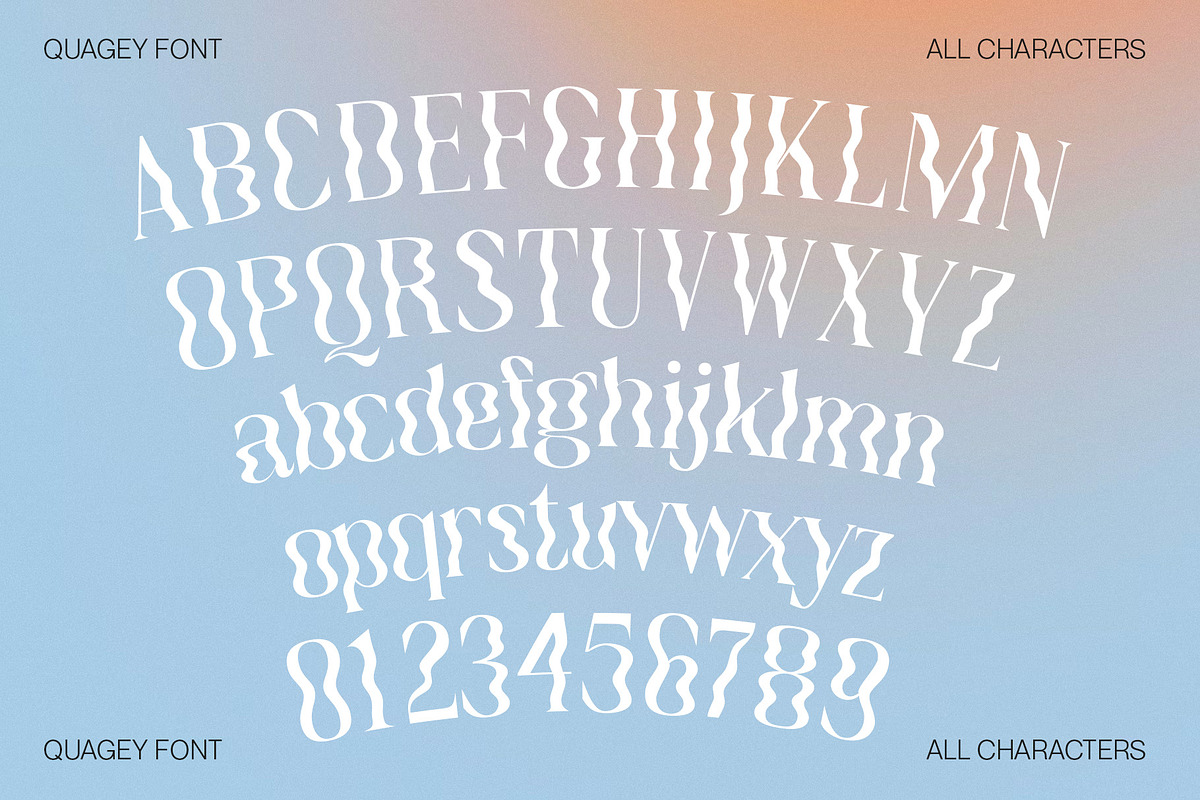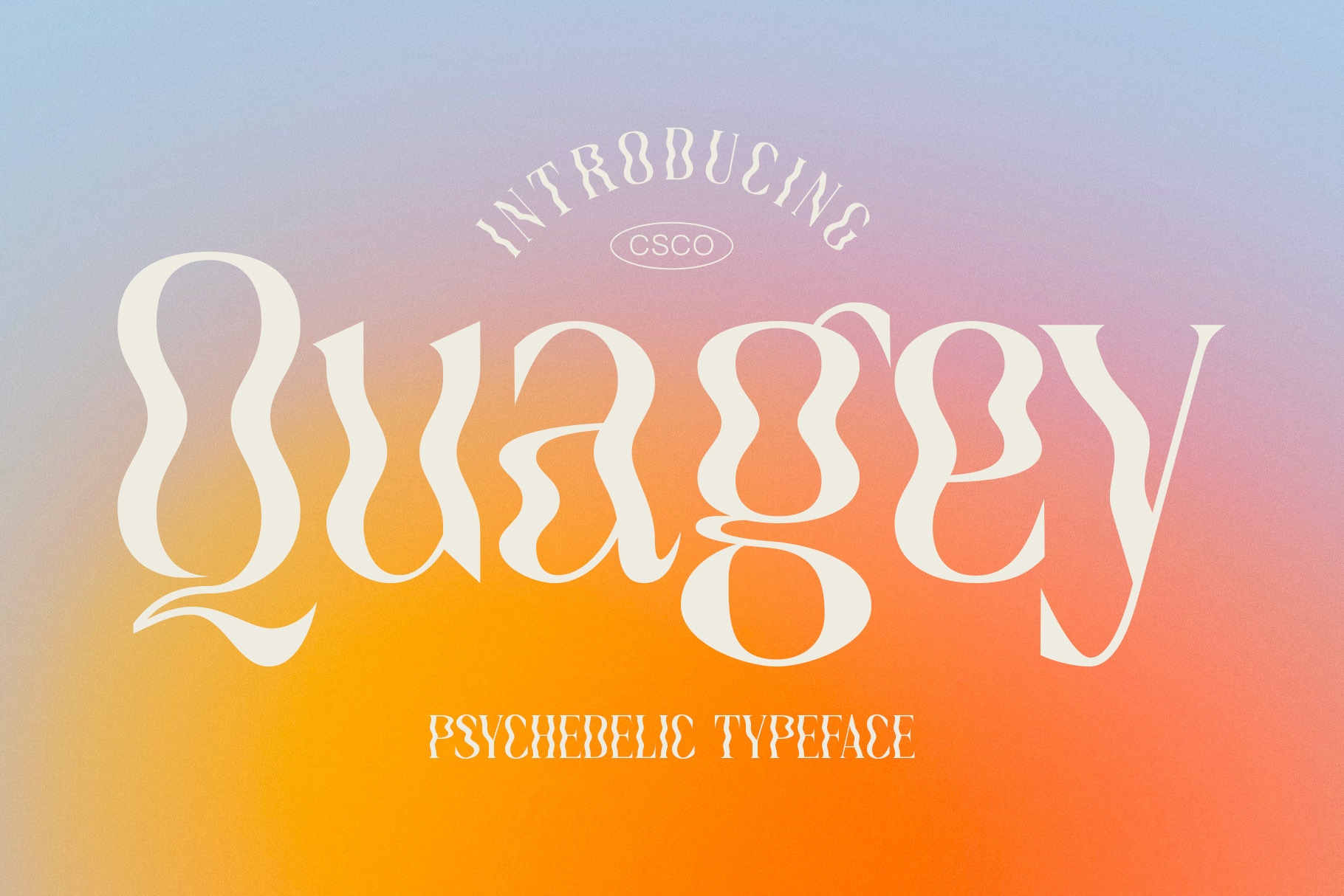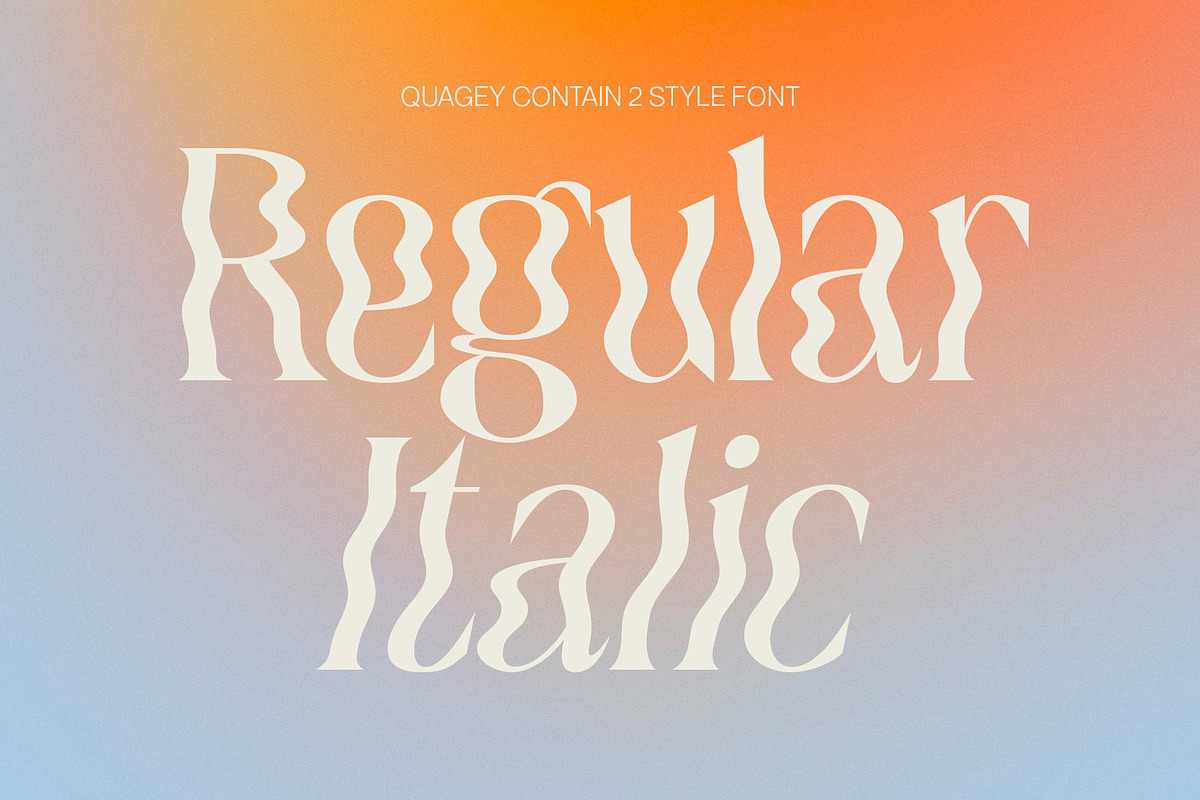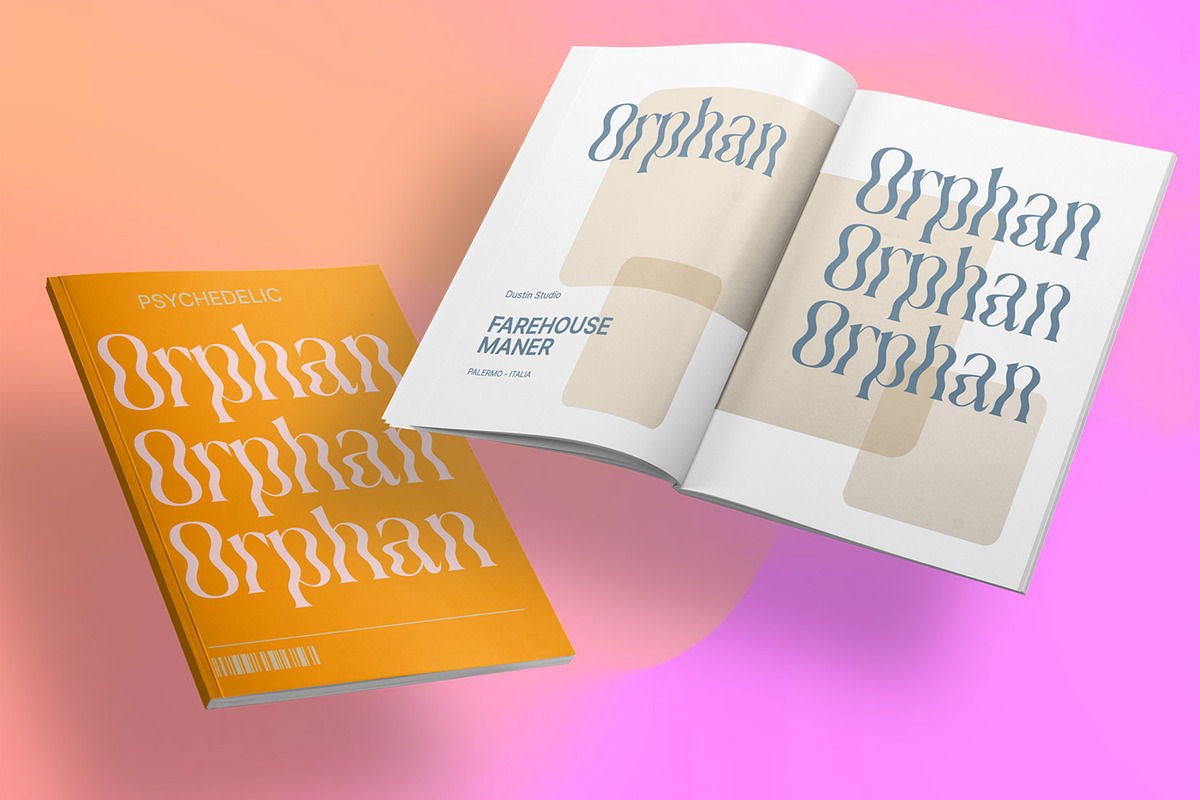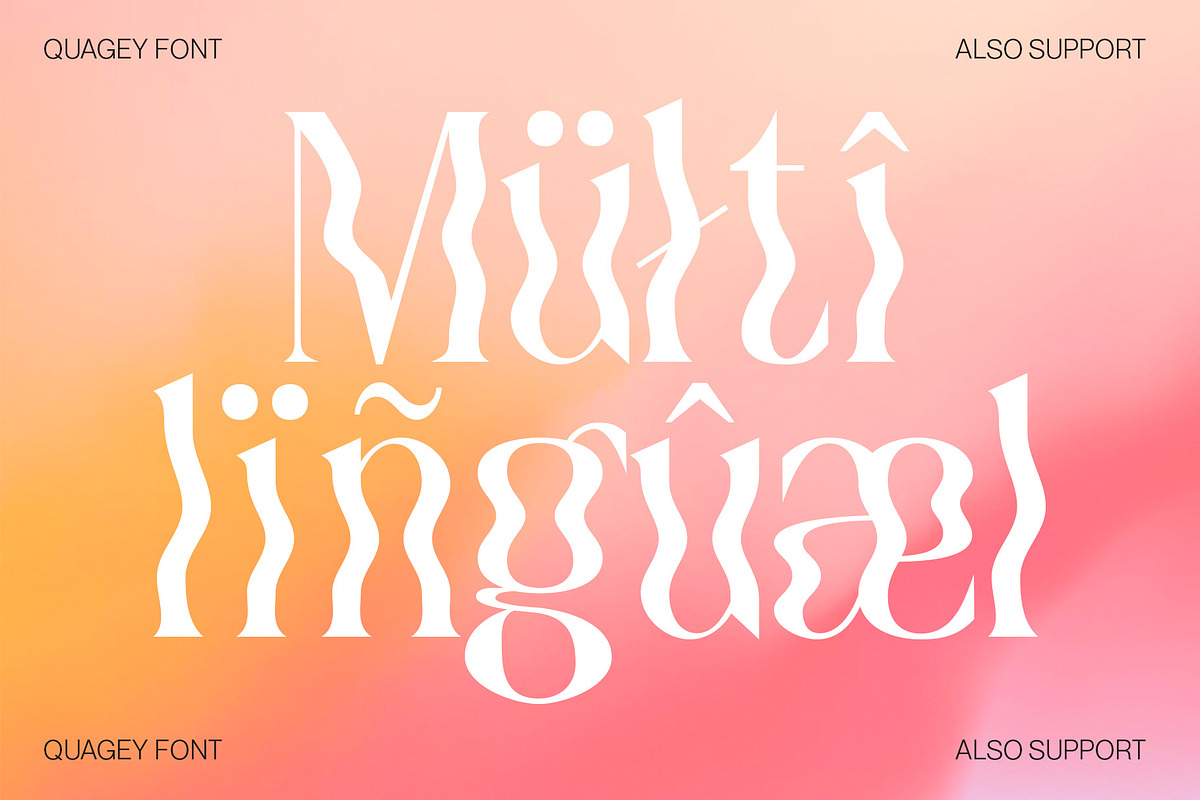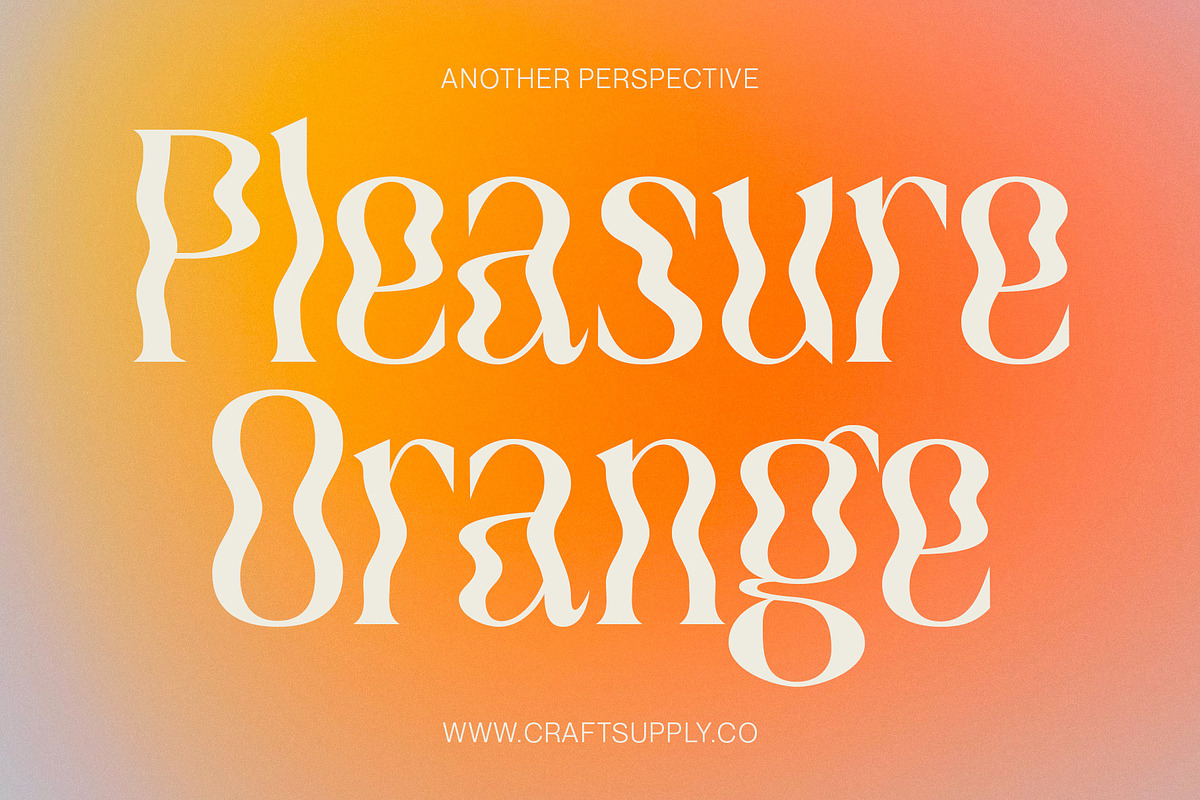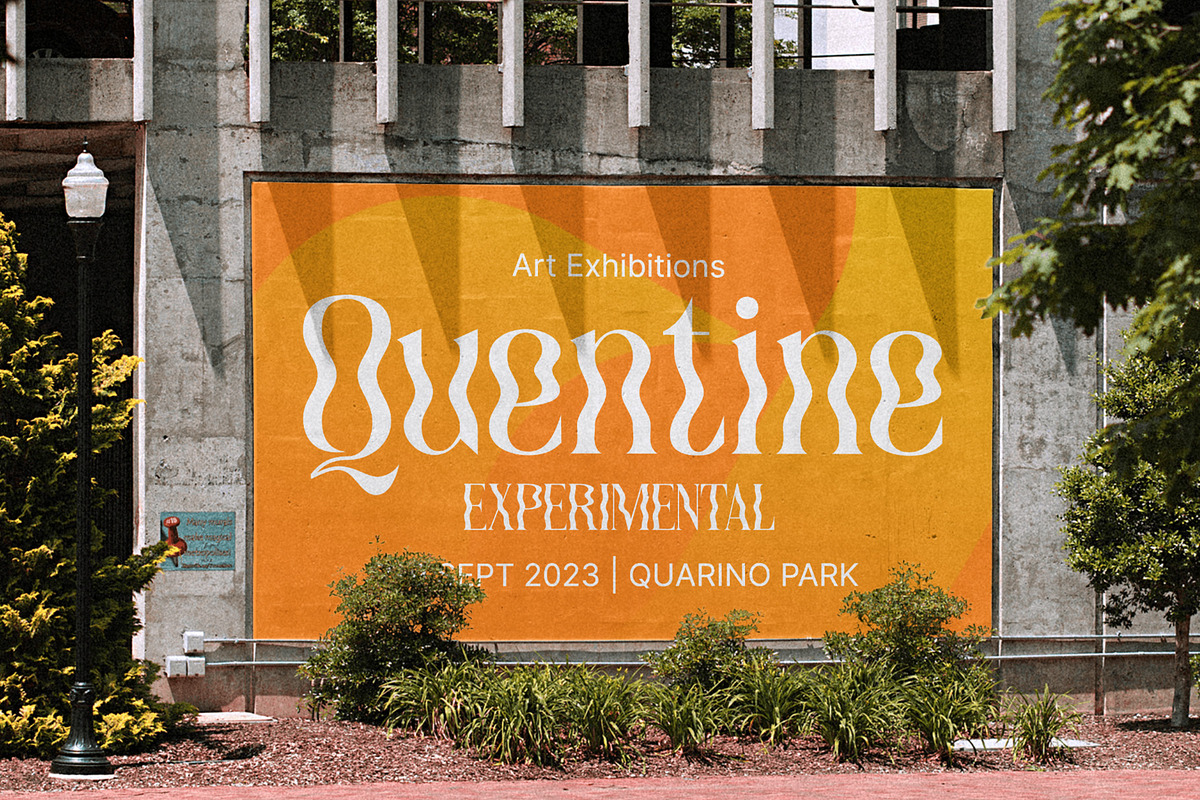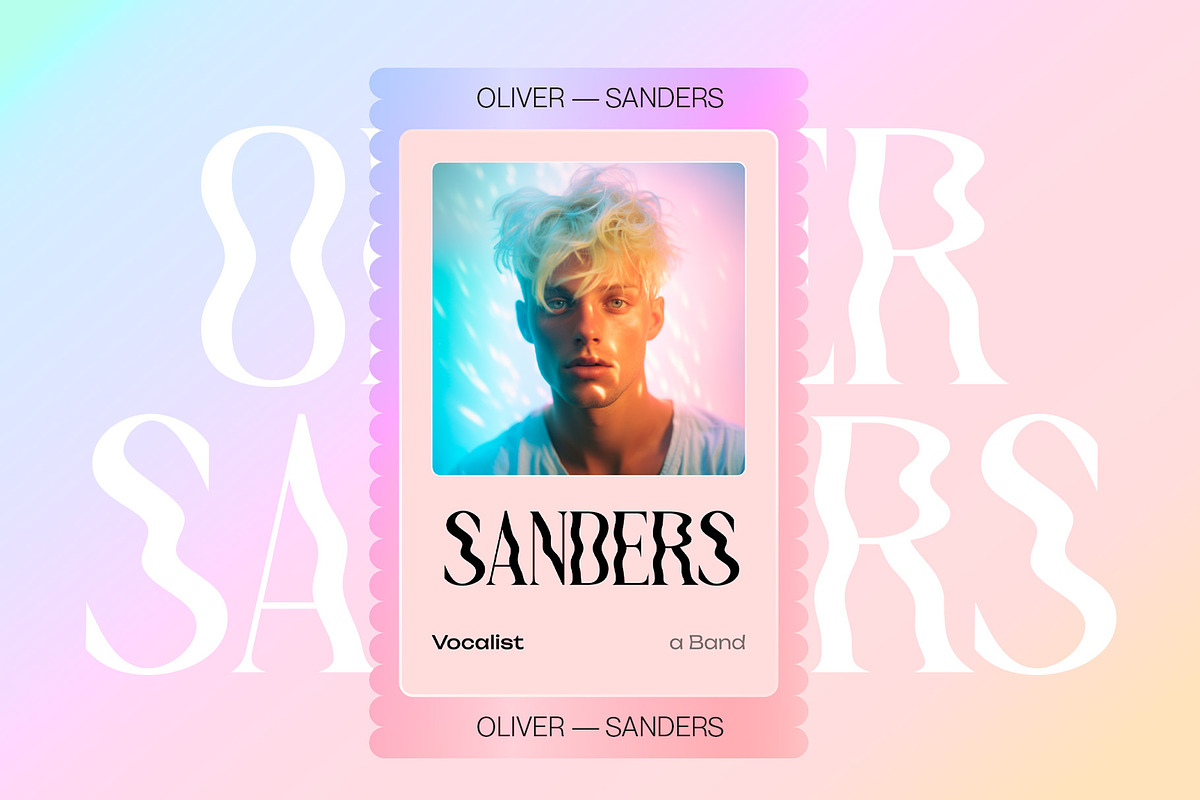
Quagey - Psychedelic Typeface
Quagey - Psychedelic Typeface: Where letters dance with vibrant, kaleidoscopic energy. It's not just a font; it's an electrifying visual experience, making your message unmissable, like a psychedelic journey.
This typeface is ideal for greeting card, packaging, brand identity, poster, or any purpose to make your design project look eye catching and trendy. Feel free to play with this typeface!
- Quagey Regular
- Quagey Italic